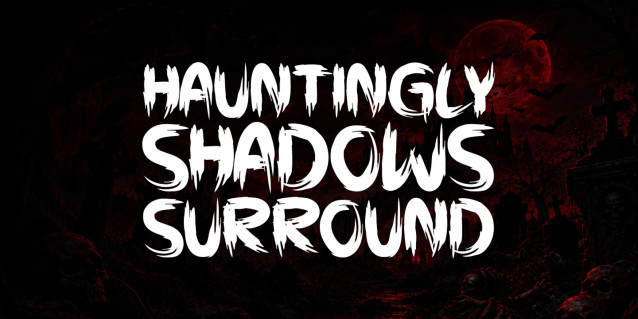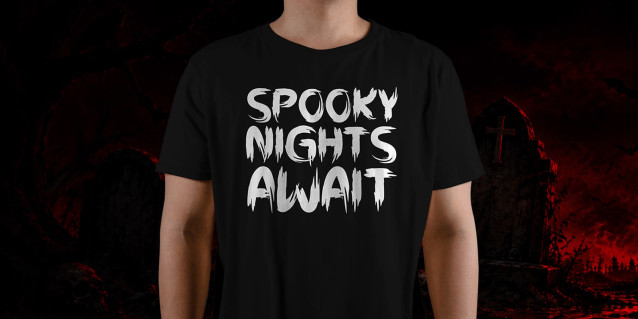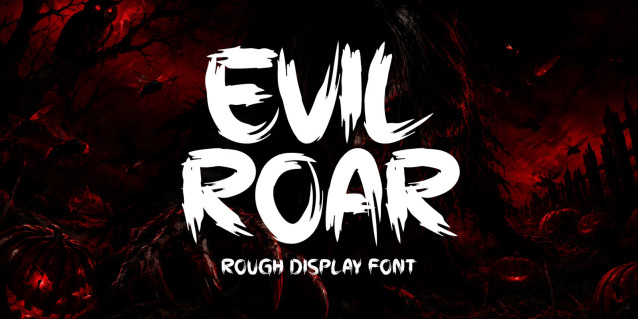
Evil Roar Font
Evil Roar is a fierce and atmospheric display font designed to bring a dark, haunting, and rebellious character to creative projects. Its dramatic letterforms create a powerful visual impact, making it ideal for Halloween artwork, horror posters, album covers, apparel designs, logos, social media graphics, packaging, invitations, merchandise, and more. This versatile typeface can also be used across multiple design elements and design resources, adding an eerie and memorable personality to both digital and print projects.